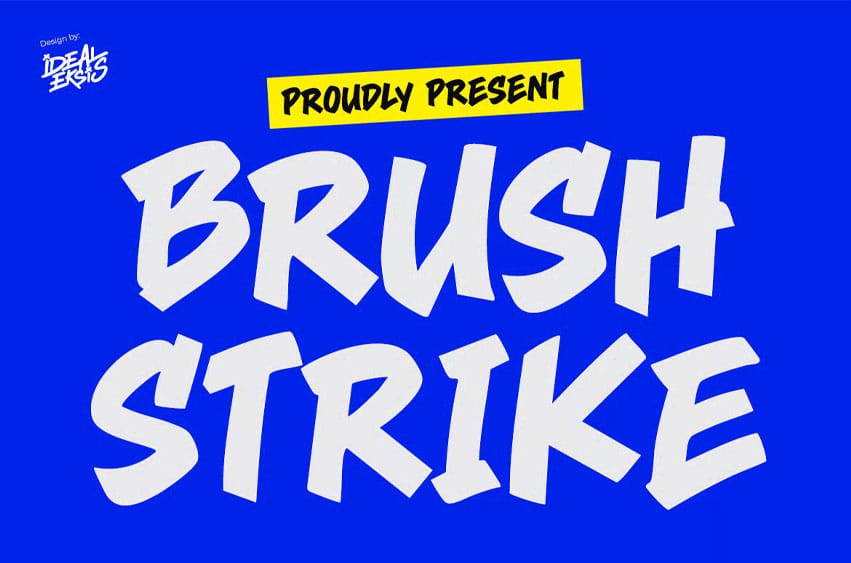
Brush Strike Font features bold, irregular strokes that evoke a powerful, hand-painted aesthetic.
Each uppercase letter exhibits varying widths and angles, with rough, textured edges that simulate a spontaneous brush or marker application.